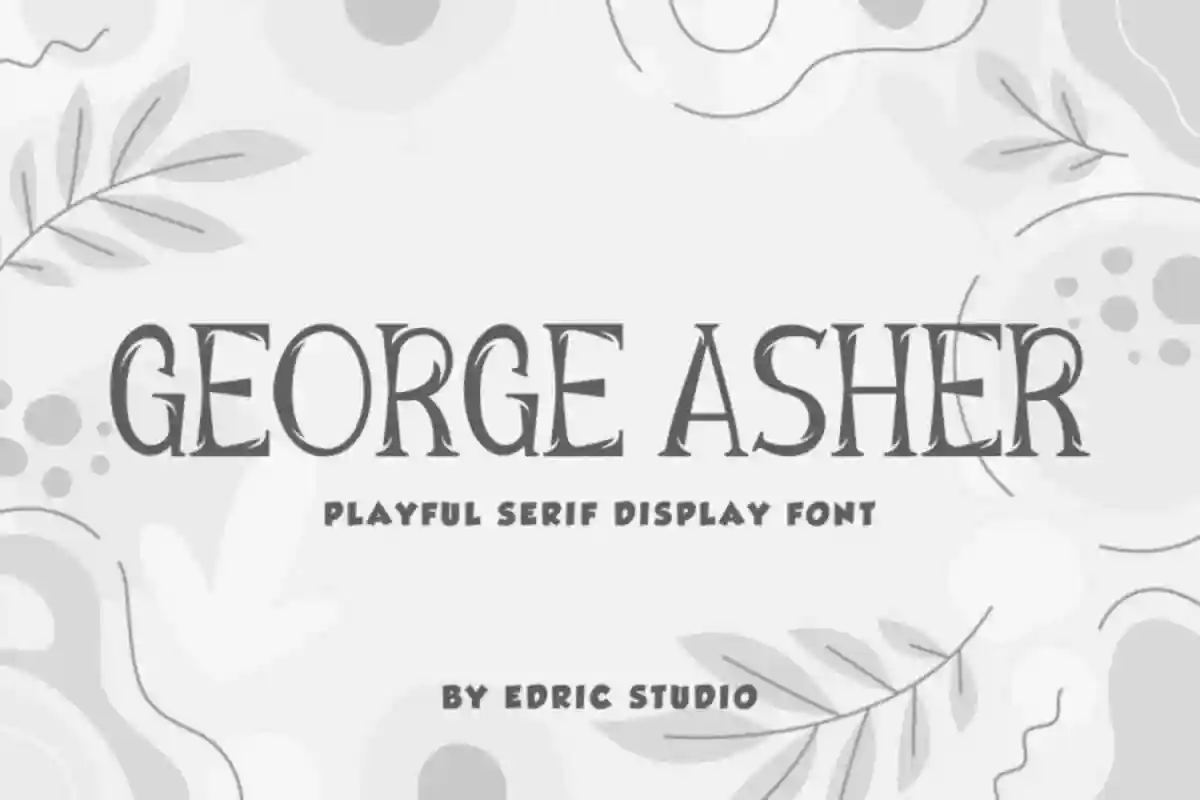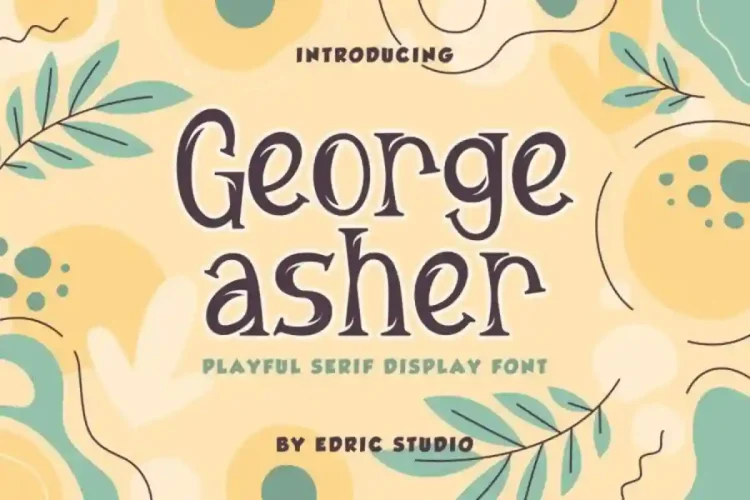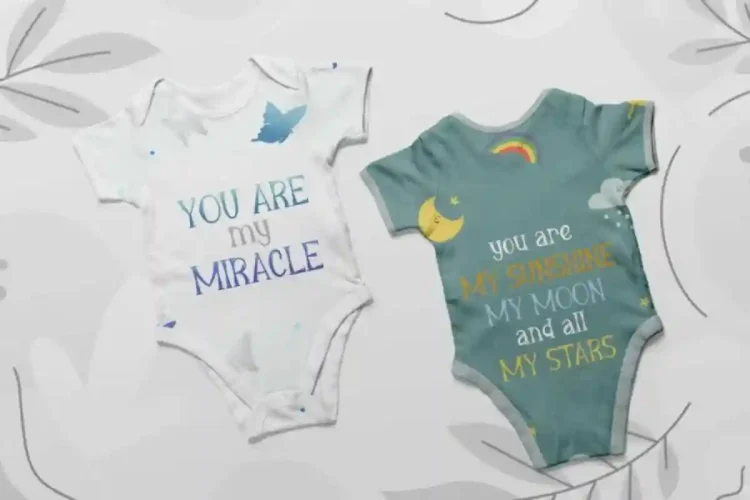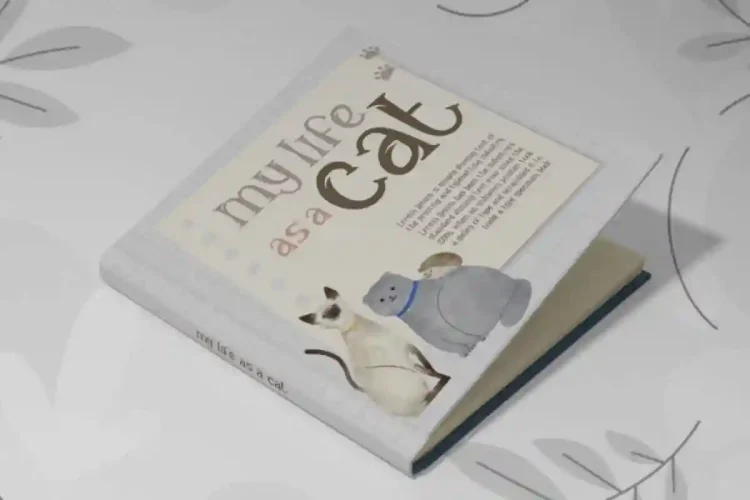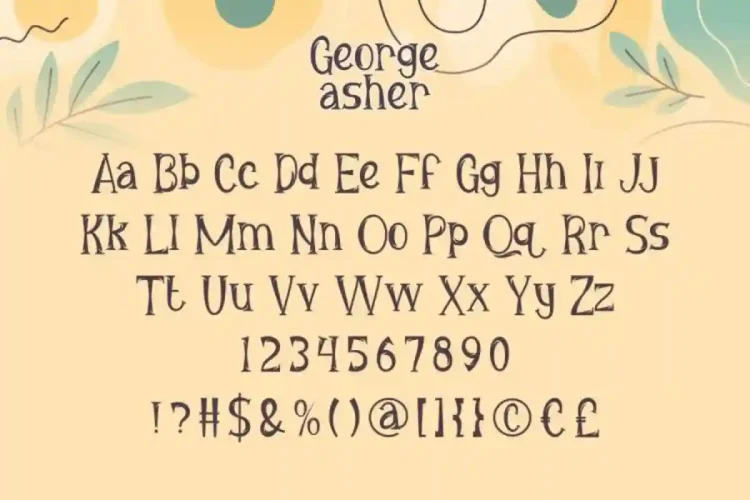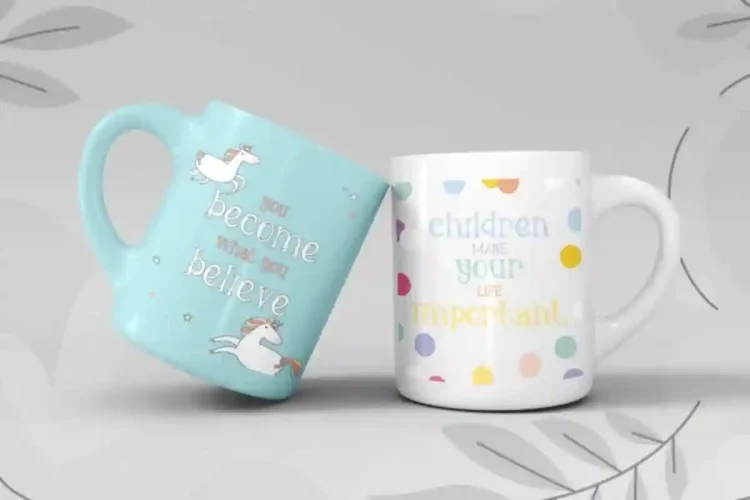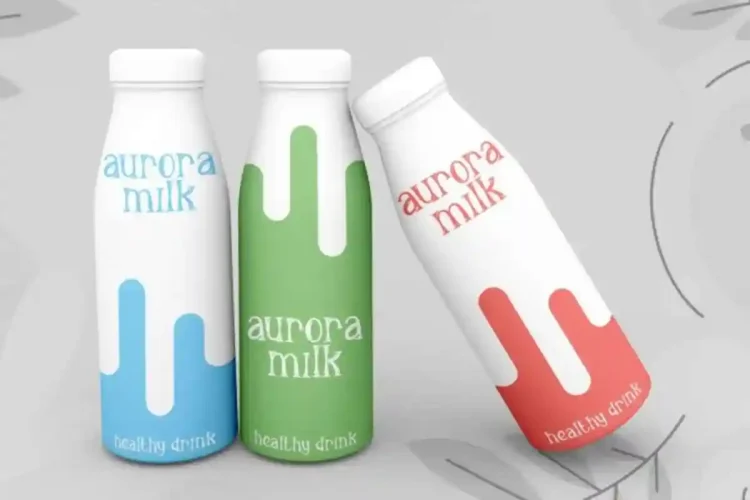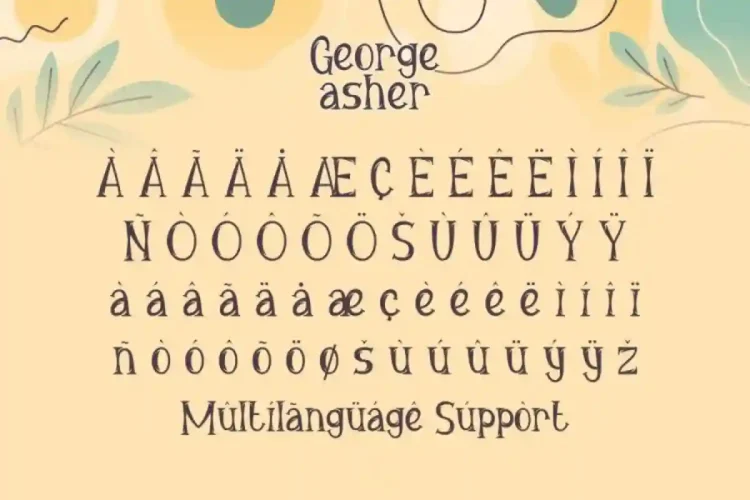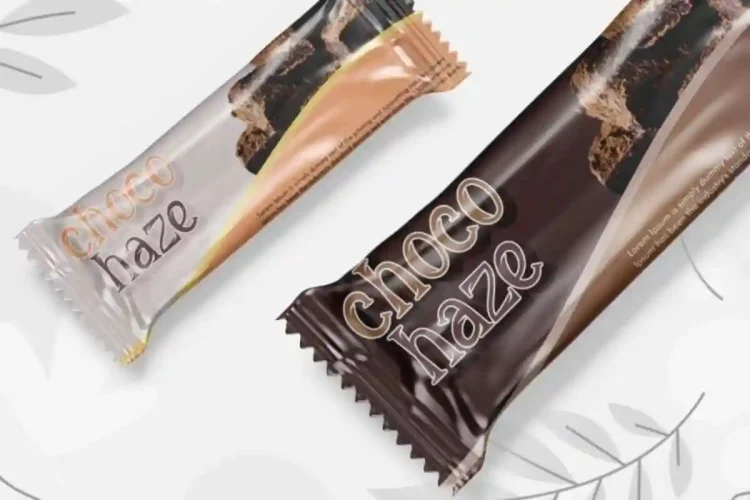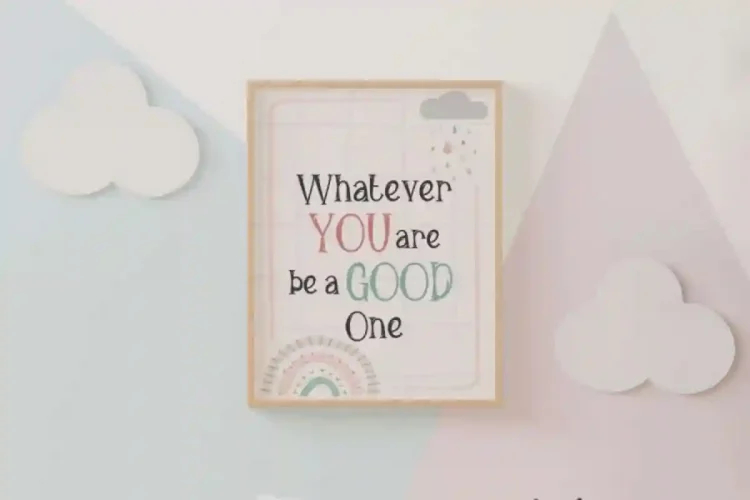
George Asher Modern Display Font
George Asher Modern Display Font is a unique serif display font. This font has a decorative and informal style, and it’s a good choice for each of the creations that require a different touch. George Asher Modern Display Font is ideal for a wide range of industries and purposes. Use it for advertising, publishing, crafts, culinary branding, packaging, product design, or digital design.
George Modern Display Asher Font is a playful typeface with unique decoration in each character. Inspired by nature that brings a feeling of relaxation to your fun projects. It’s PUA Encoded Character, work on PC & Mac with Simple installations. Accessible in the Adobe Illustrator, Adobe Photoshop, Adobe InDesign, even work on Microsoft Word, fully accessible without additional design software.